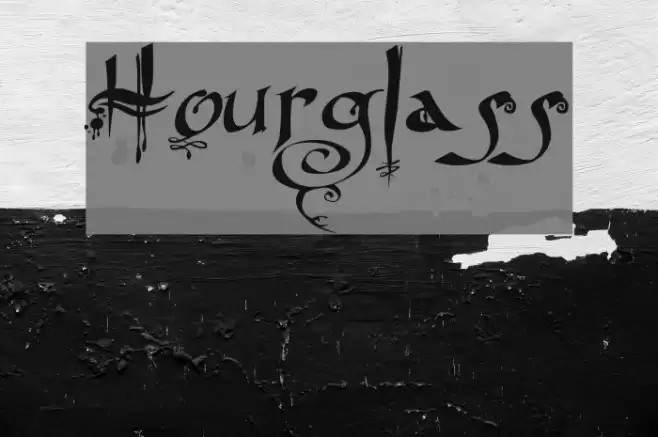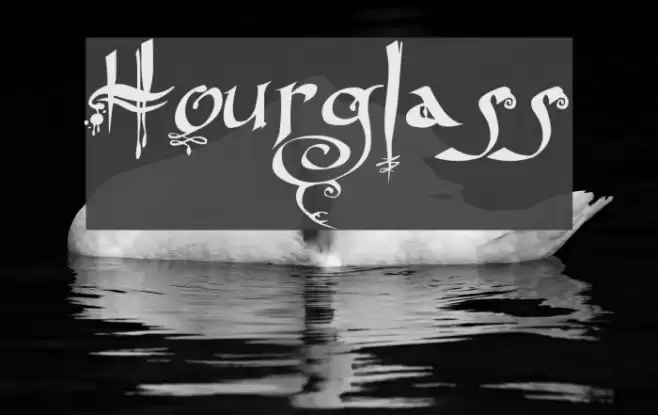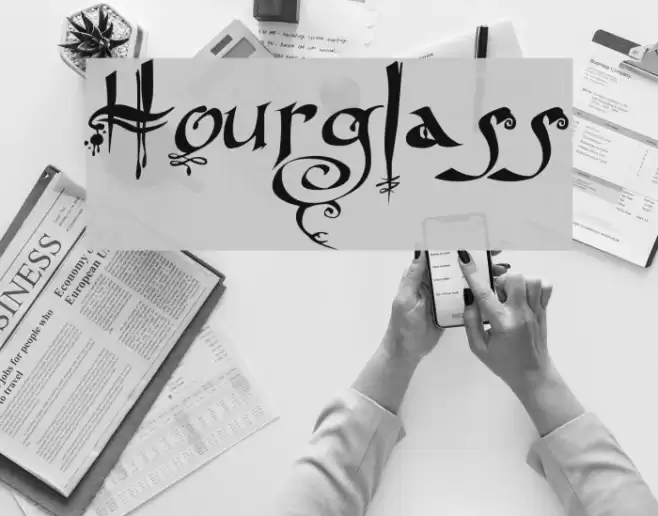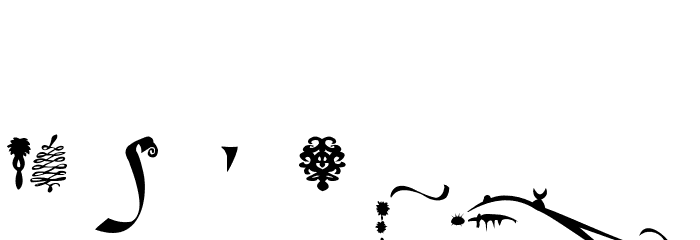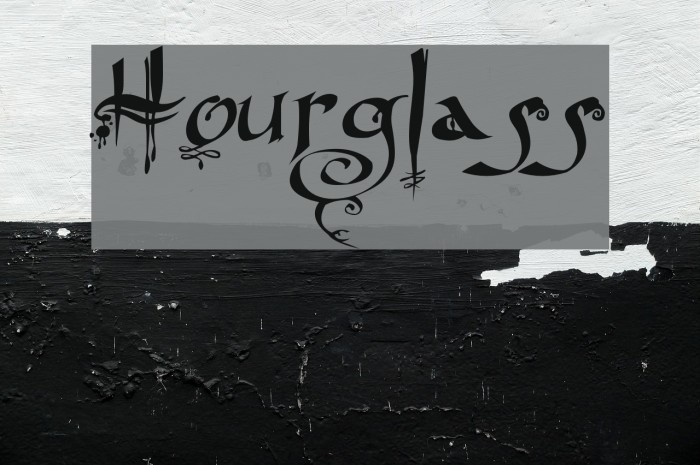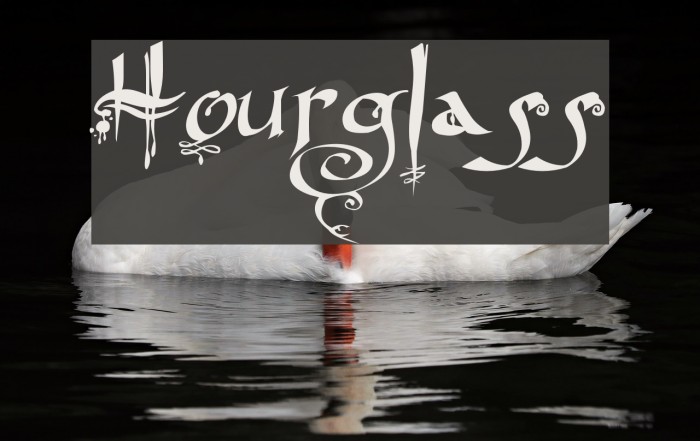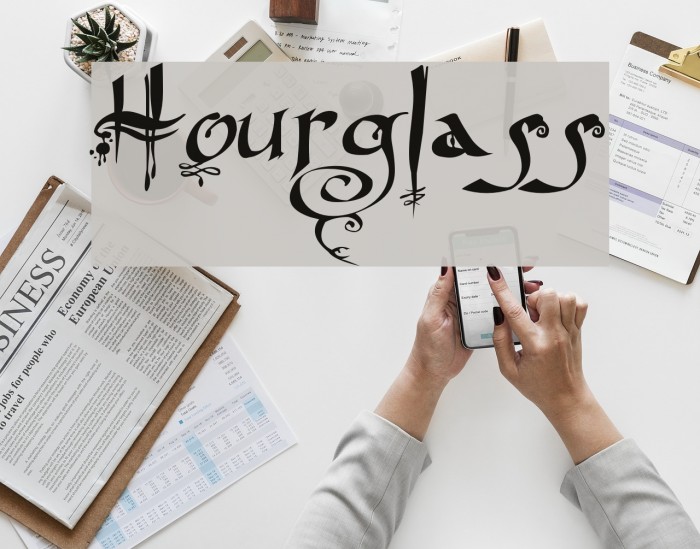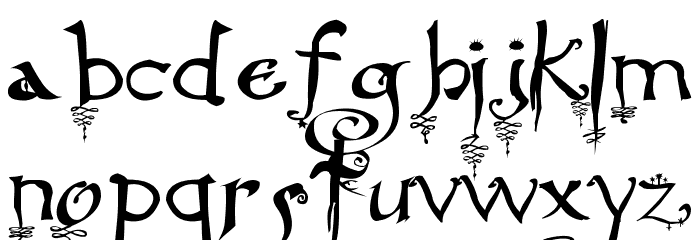
Hourglass Font
Hourglass Description
This font features an intricate and decorative design, characterized by elaborate flourishes and ornate details. Each letter is adorned with unique embellishments, creating a sense of elegance and sophistication. The uppercase letters are particularly elaborate, with swirling lines and decorative elements that extend beyond the basic letterforms. The lowercase letters maintain a similar style, though slightly more subdued, allowing for readability while still retaining the decorative flair. The numbers and special characters are equally ornate, ensuring a cohesive look across all characters. This font is ideal for projects that require a touch of elegance and artistic expression.
An ornate and decorative font with intricate flourishes and embellishments from Uncategorized fonts.
- Proposed Projects: Perfect for wedding invitations, luxury branding, artistic posters, and decorative headings.
- Use Case: Headlines, Logos, Invitations